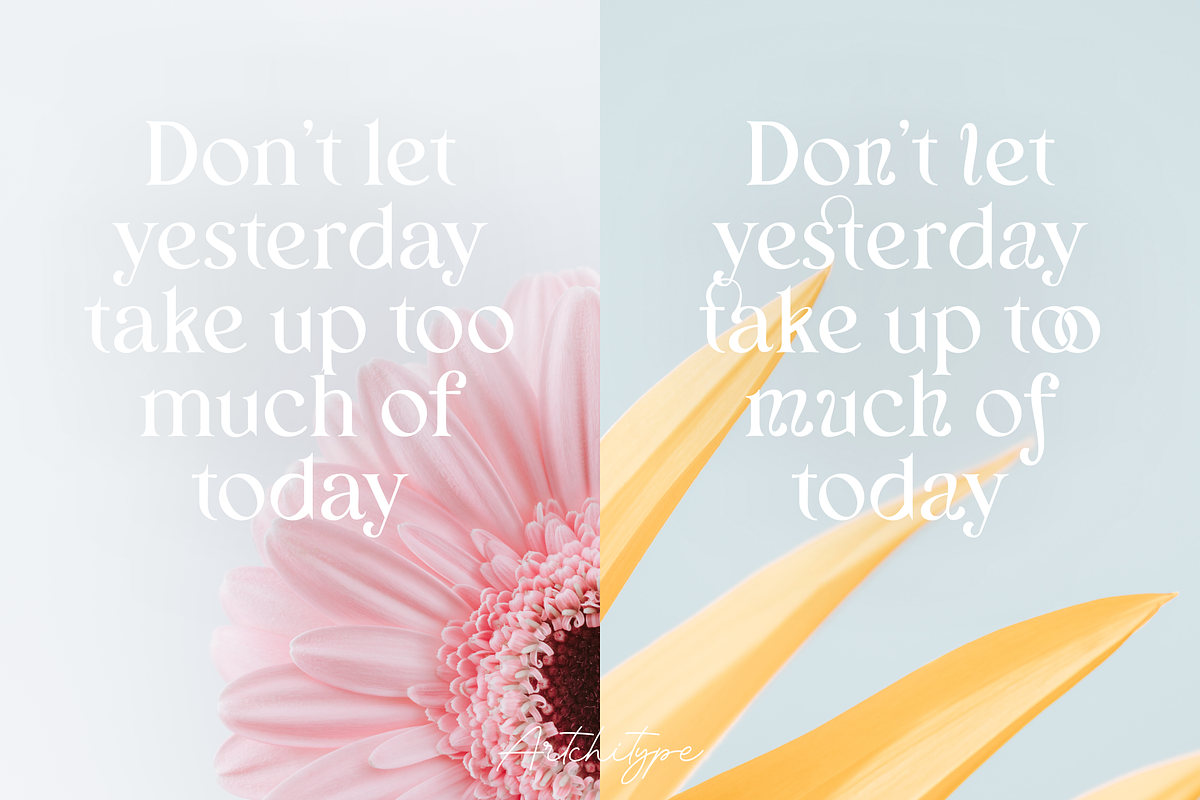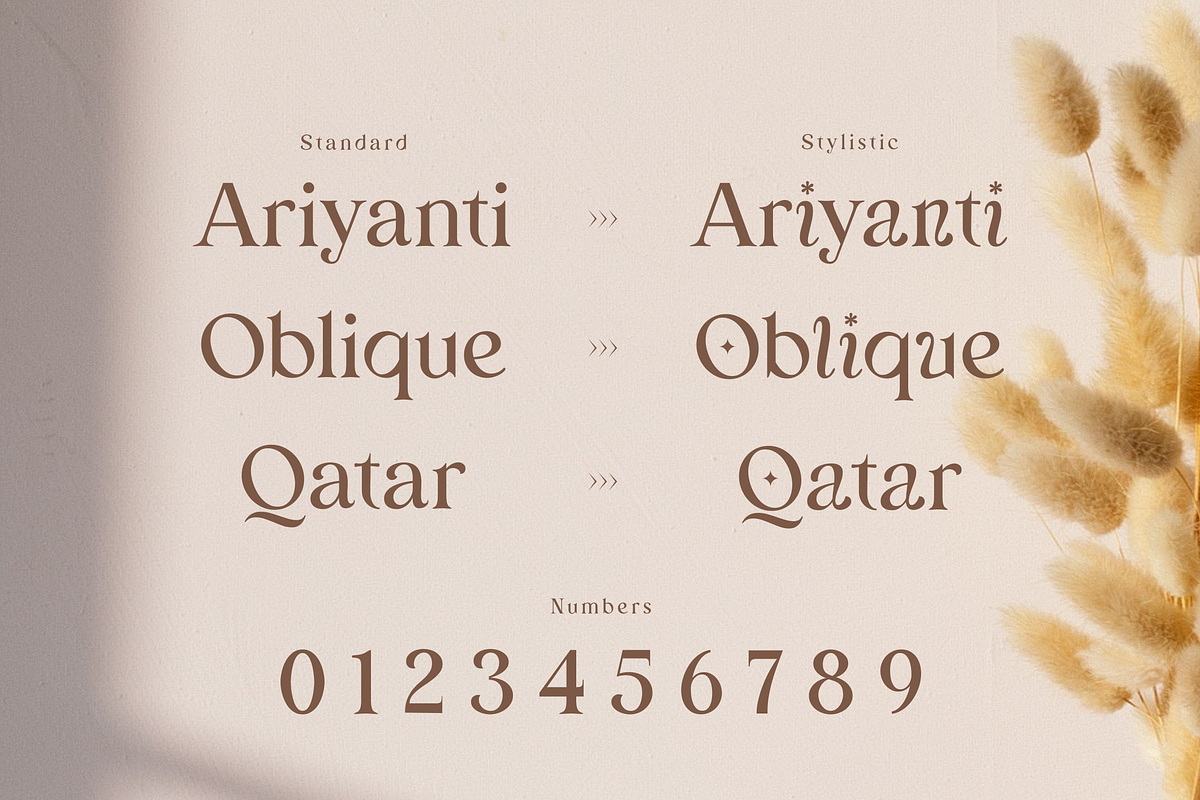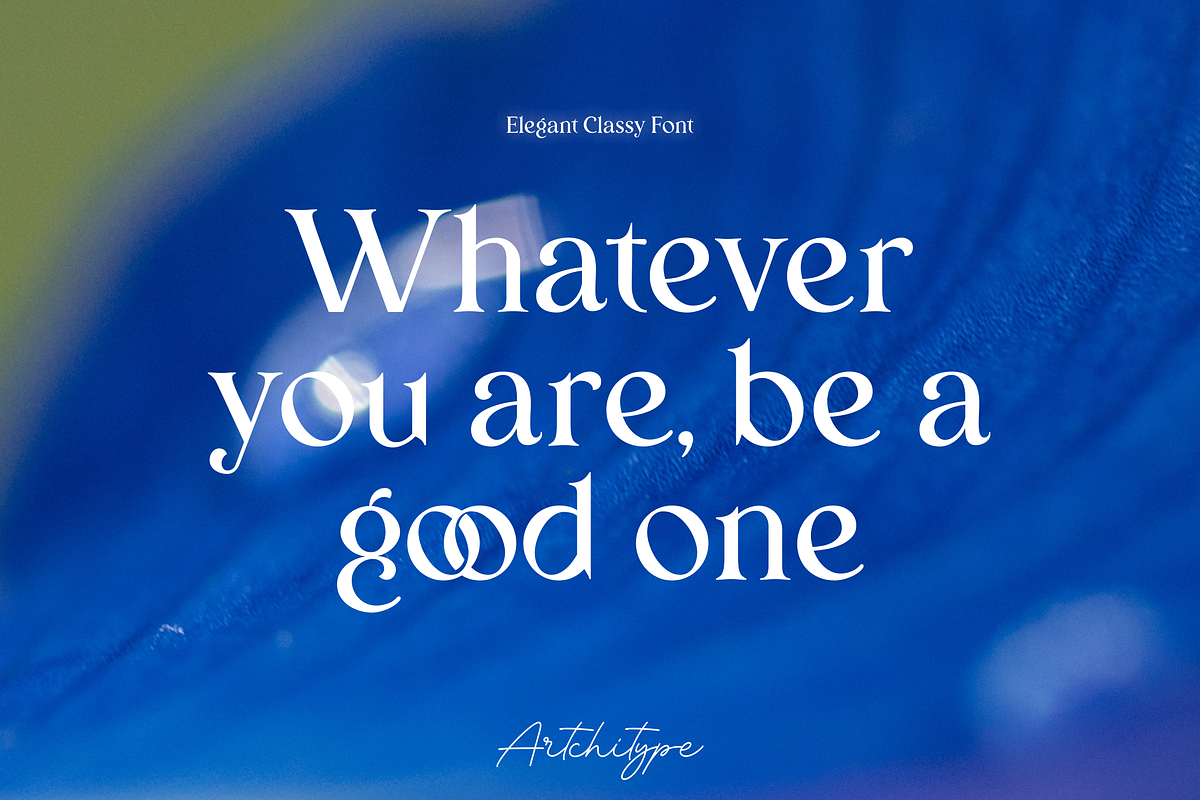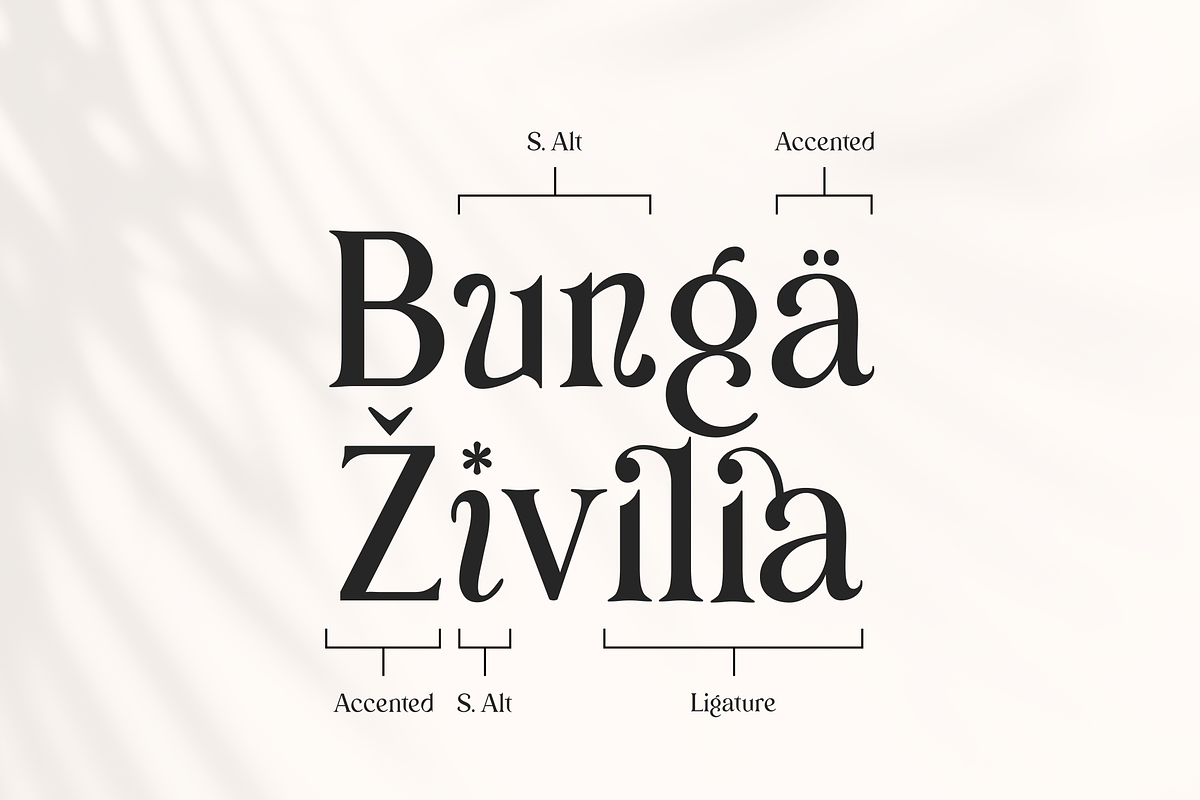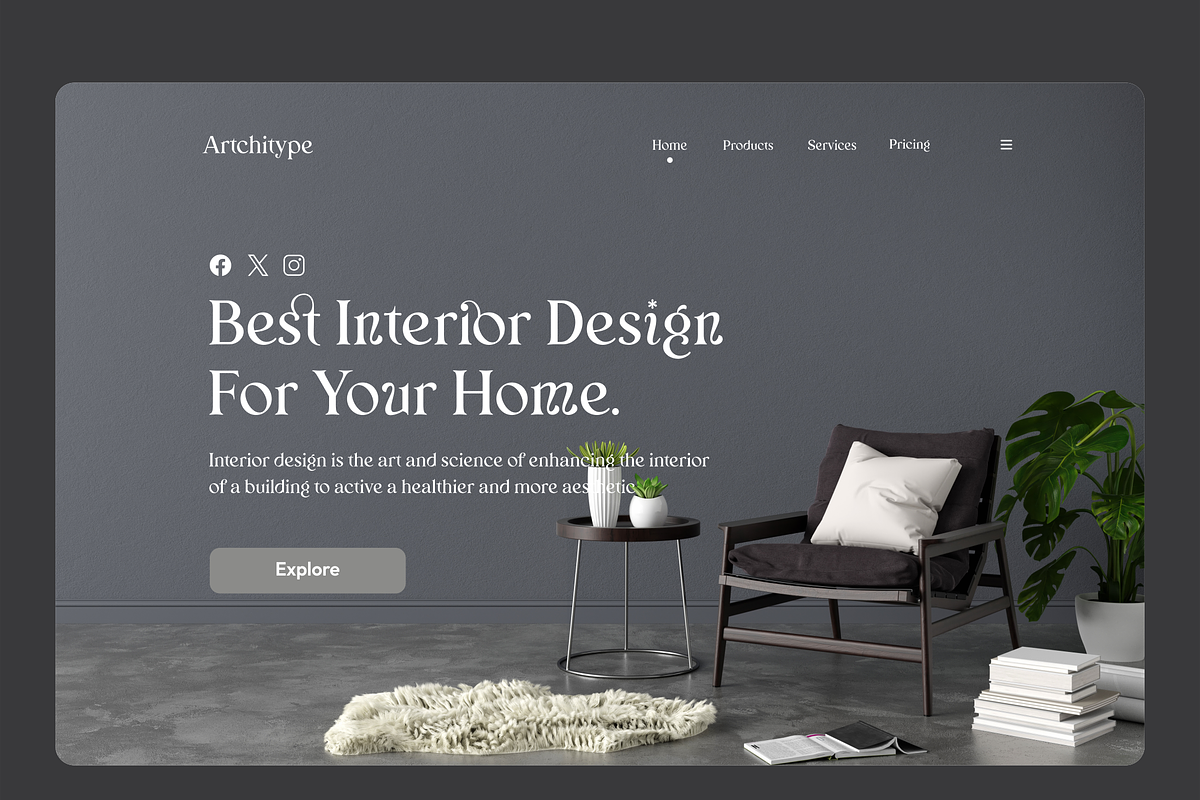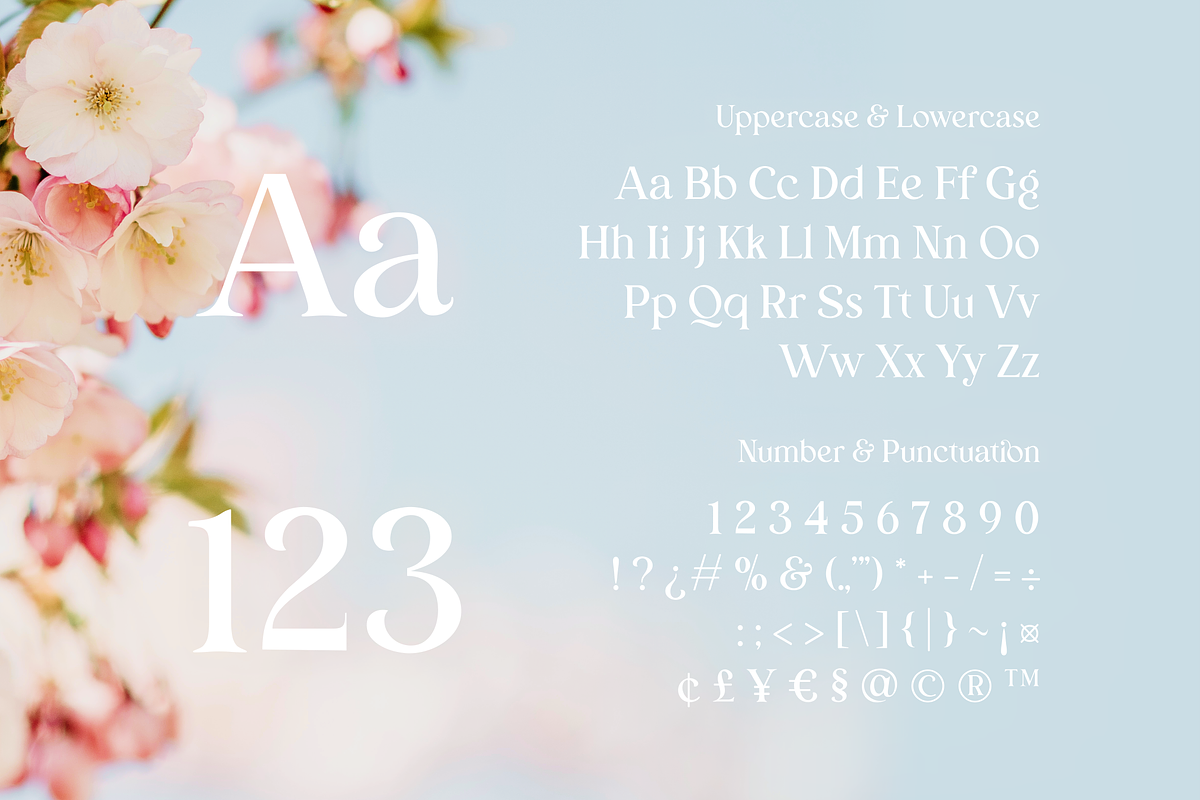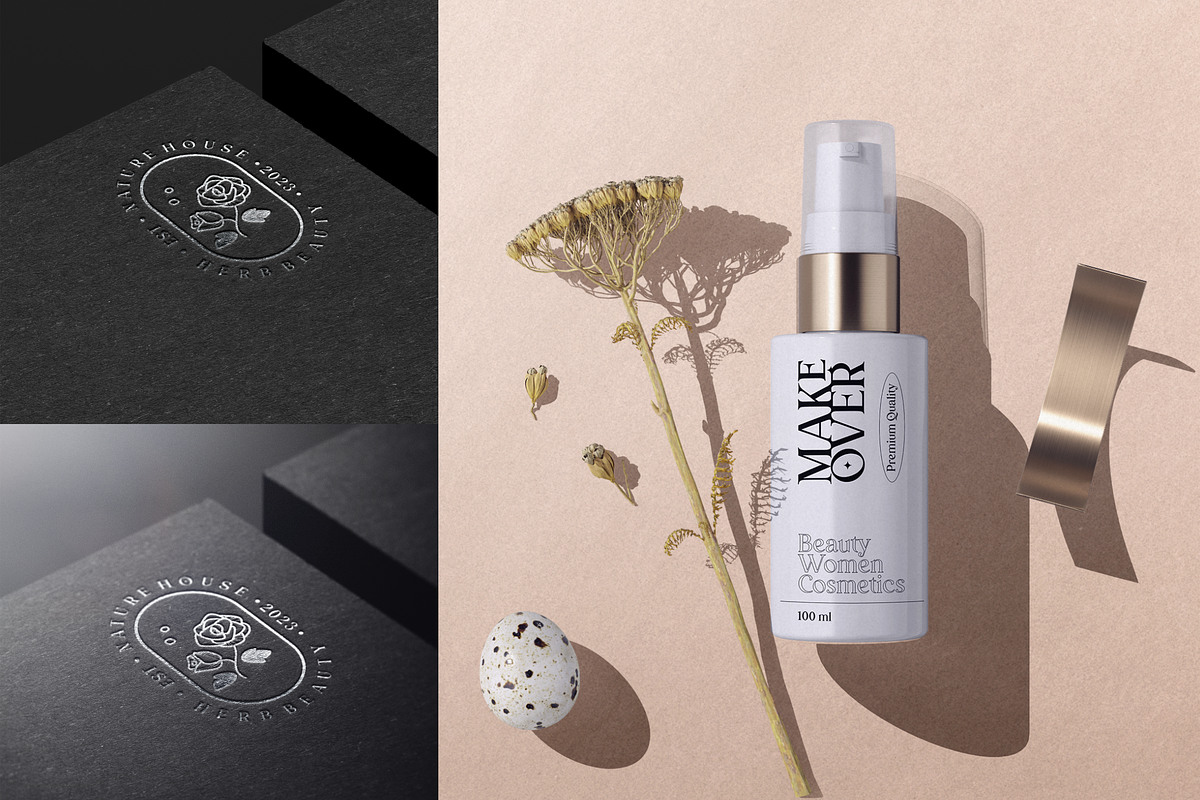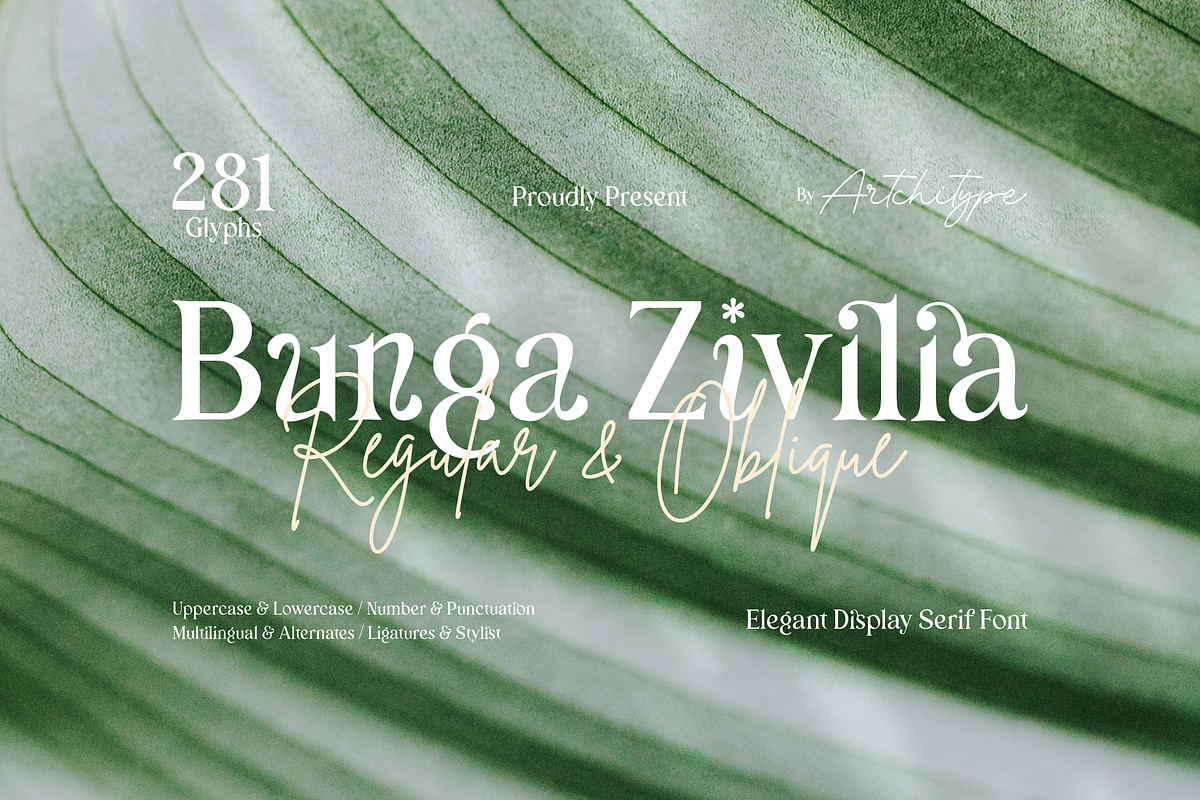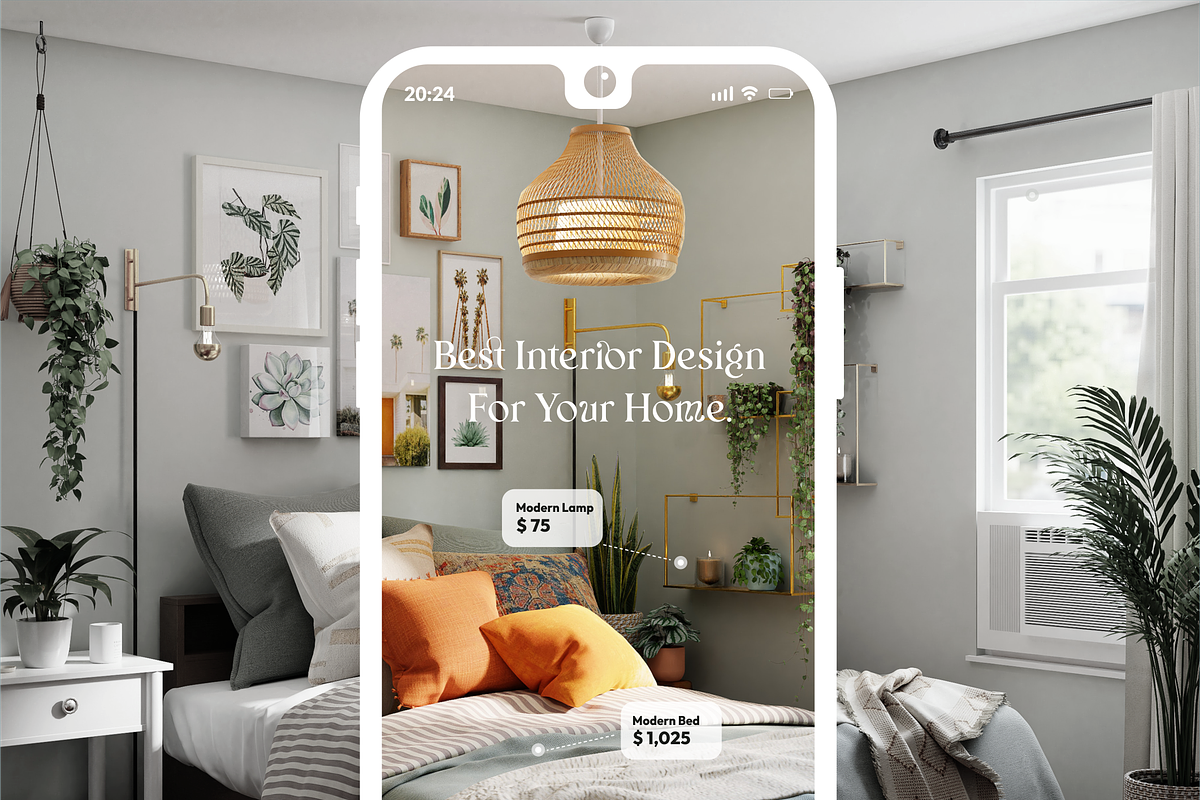
Bunga Zivilia - Display Serif Font
Bunga Zivilia is classy display serif font with 280+ characters. Includes uppercase, lowercase characters, multilingual, alternates and most common other characters.
Bunga Zivilia is perfect for logos, social media posts, product packaging, product designs, and other projects.